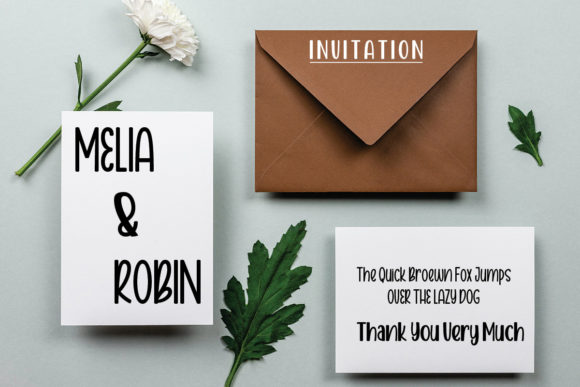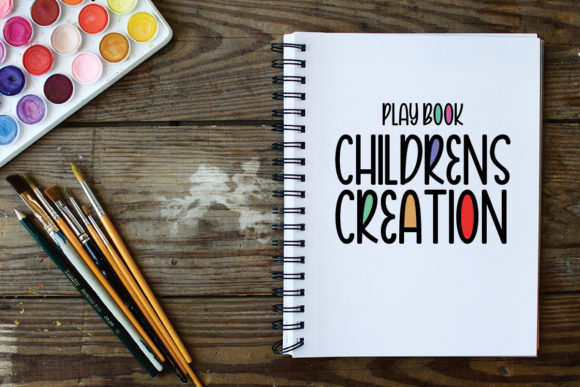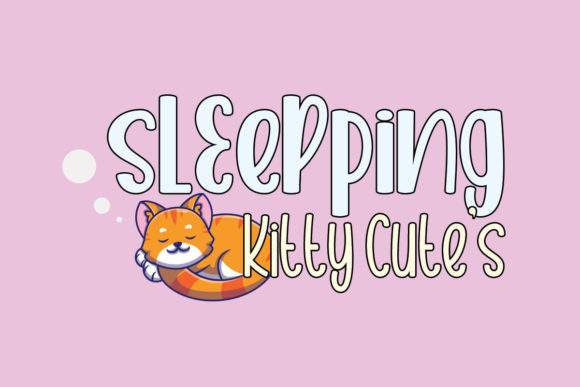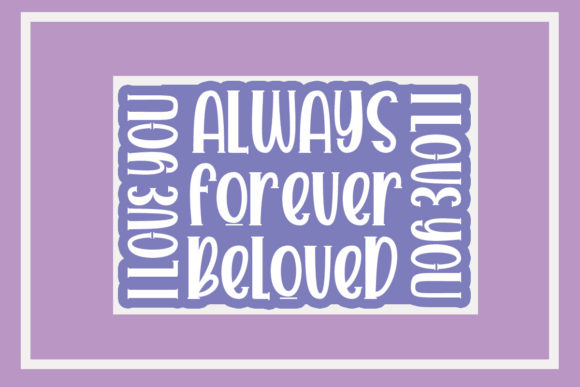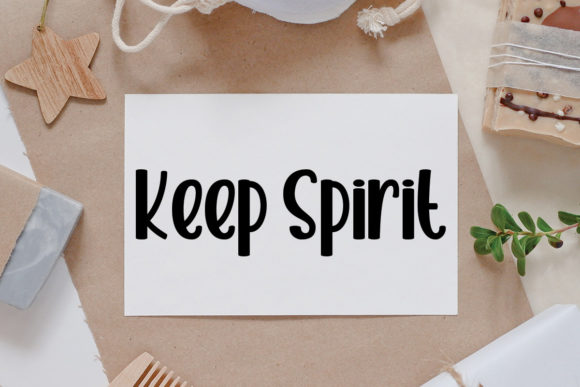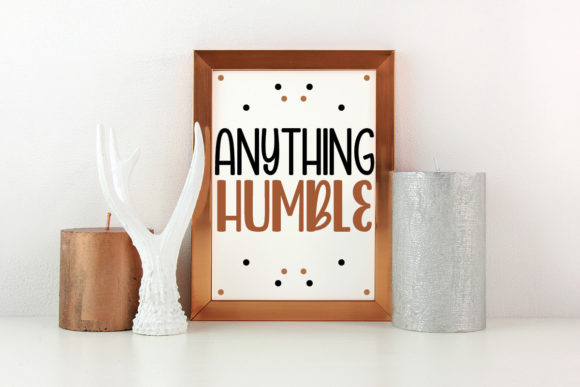
Sleeping Cat Font – Free Download
Introduction to Sleeping Cat Font
Sleeping Cat is a cute and quirky display font.
It is suitable for letters, magazines, books, clothing, subtitles, social media statuses, and various other creations .
Key Features of Sleeping Cat Font